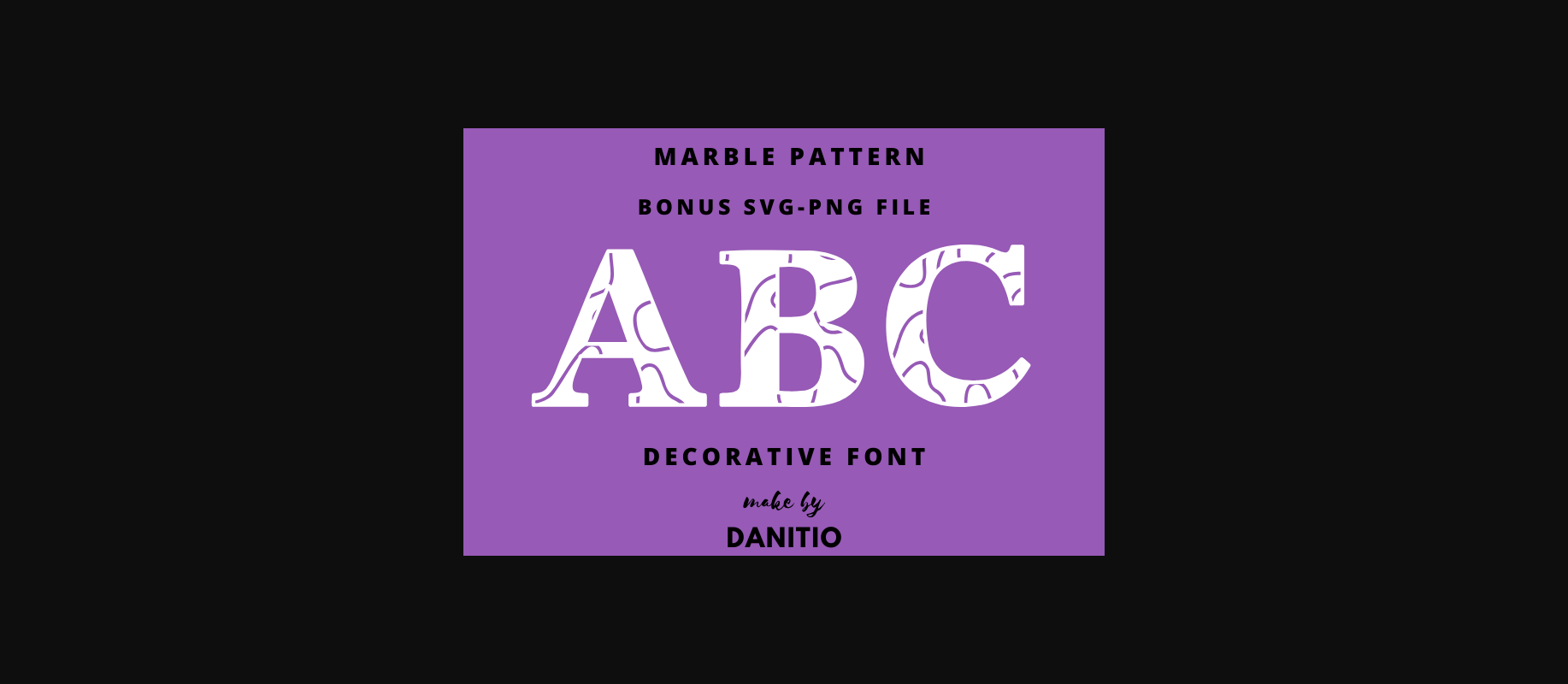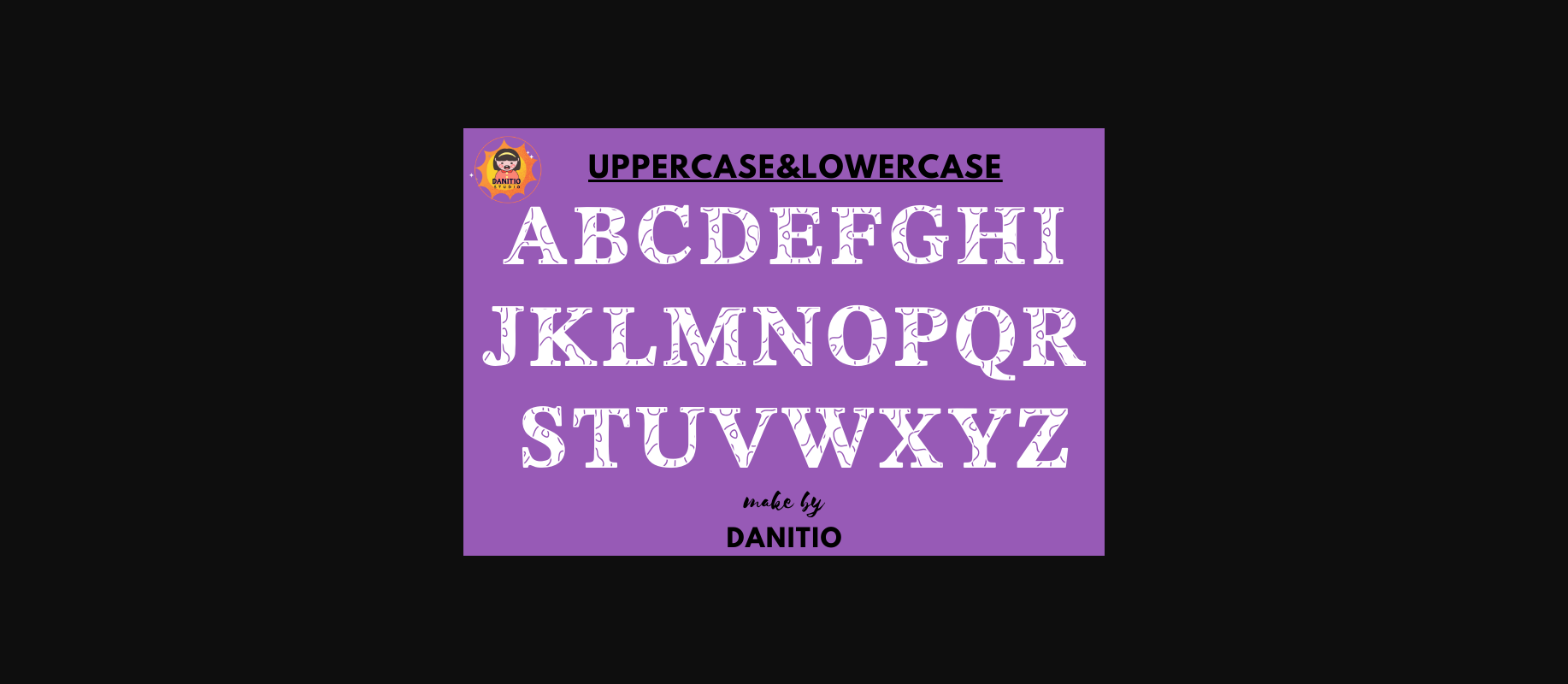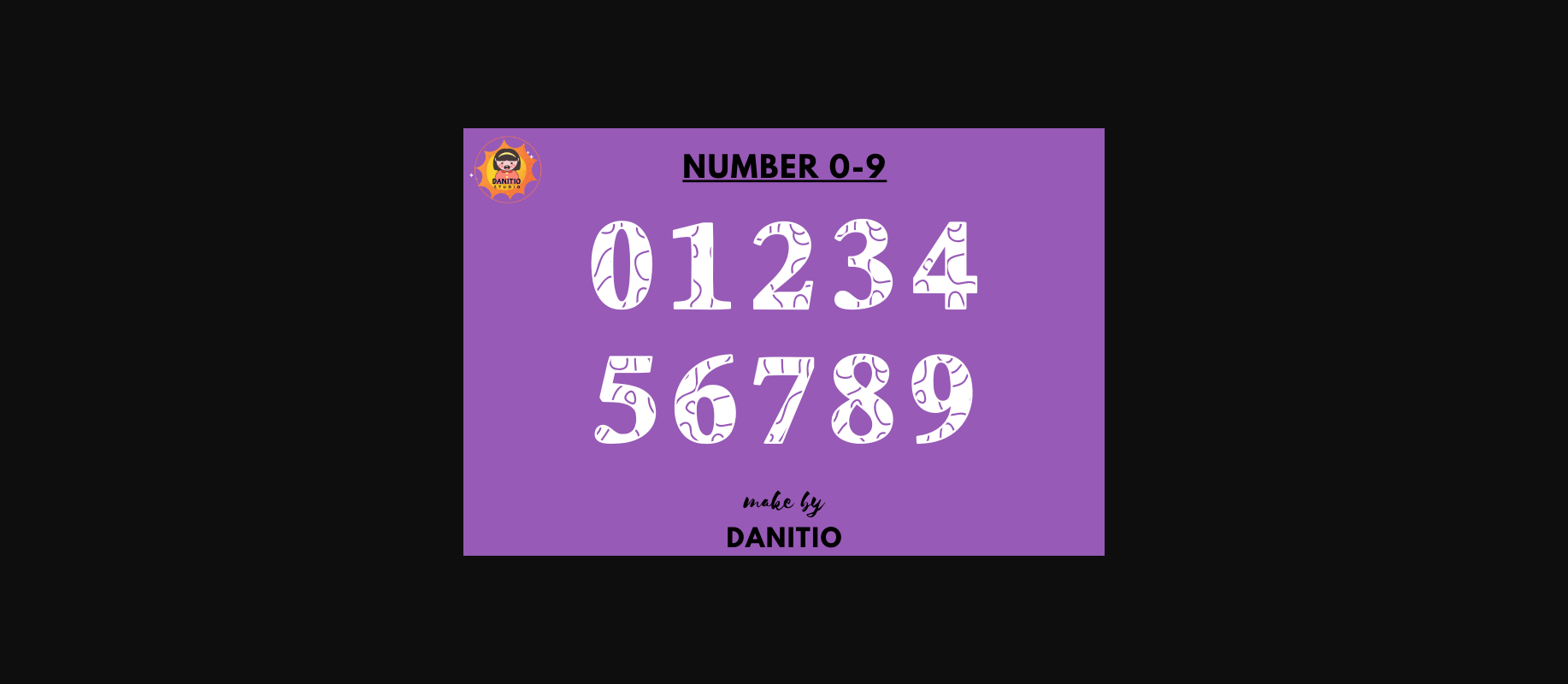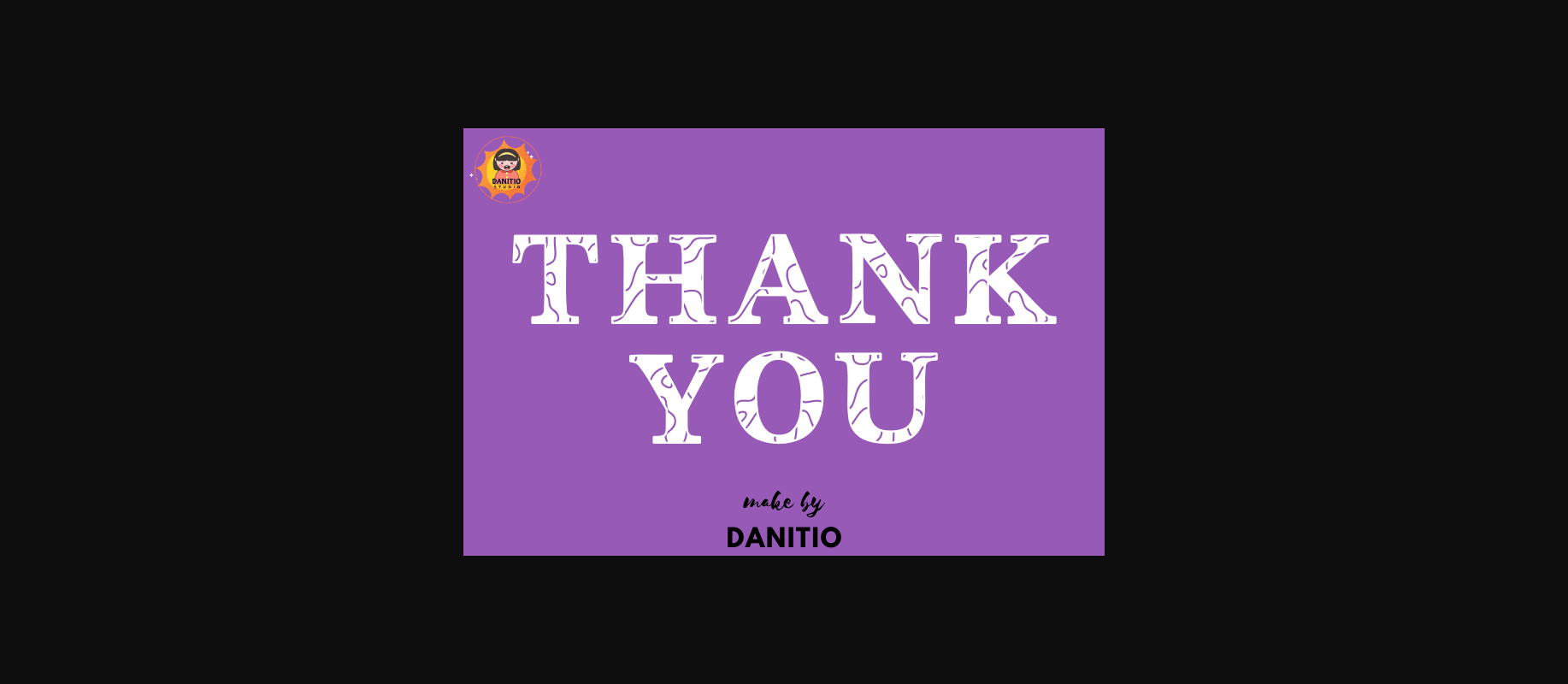
HomeDecorative FontsMarble Pattern Font Decorative Fonts Marble Pattern Font FacebookXPinterestWhatsApp 1 of 6 ... Marble Pattern Font Poster 2... Marble Pattern Font Poster 3... Marble Pattern Font Poster 4... Marble Pattern Font Poster 5... Marble Pattern Font Poster 6... About Marble Pattern Font Marble Pattern is a lovely and cute decorative font. Its ornaments are perfect for adding an extra touch of style to your projects. DOWNLOAD NOW People also explored Adventure Font Selfnode Font Play Sun Font Densfort Font Crystal Snowfields Font Whitney Font MFC Keating Monogram Digofa Font Great in December Font 288 0 TagsMarble Pattern Font Previous articleSmile Day FontNext articleStarfish Glee Glimpse Font LEAVE A REPLY Cancel reply Comment: Please enter your comment! Name:* Please enter your name here Email:* You have entered an incorrect email address! Please enter your email address here Website: Save my name, email, and website in this browser for the next time I comment. Personal Use Free Adelaide Personal Use Free Read more about this font Squariess Personal Use Free Read more about this font Forturn Personal Use Free Read more about this font Super Discount Personal Use Free Read more about this font BLOG Free Fonts Risk: Why Free Fonts Can Be Dangerous for Designers Free Fonts Risk: Why Free Fonts Can Be Dangerous for Designers Using free fonts is a common practice in web and graphic design. However, the... Best Fonts for YouTube Videos: Make Your Thumbnails Stand Out Fonts That Capture the Spirit of New York City How to Install and Use Fonts on Windows, macOS, and Web Projects